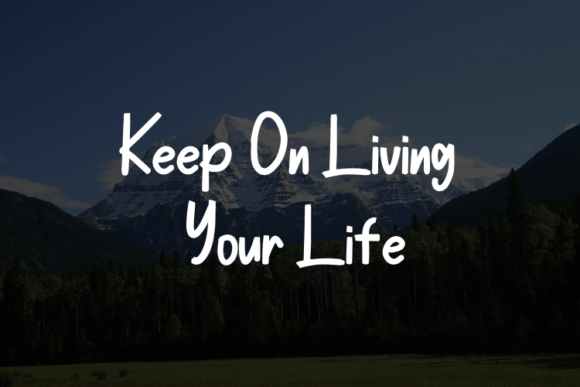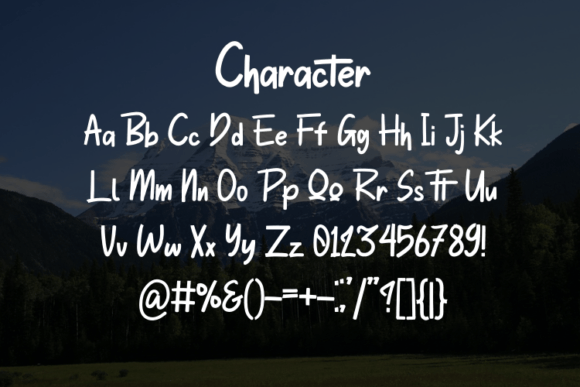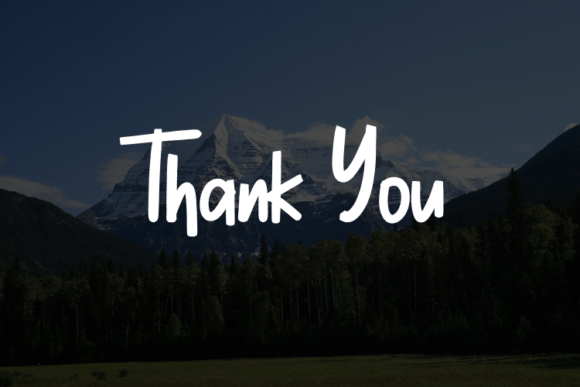
About Mount Lawu Font
Introducing “Mount Lawu” – Your Simple and Modern Script Typeface for Elegant Designs!
“Mount Lawu” is more than just a font; it’s a script typeface that combines simplicity and modernity to bring an elegant and luxurious touch to your design projects. Whether you’re working on logos, book or movie design titles, fashion brands, magazines, clothing, fonts, quotes, or more, “Mount Lawu” is the ideal choice for adding an air of sophistication to your work.
With “Mount Lawu,” you have access to a font that seamlessly blends simplicity with modern style. Its clean and elegant script design adds a sense of refinement and class to your text, ensuring that your content stands out with a touch of luxury.
Imagine using “Mount Lawu” to create elegant and luxurious logos that convey prestige and quality, design captivating titles that exude modernity and style, craft fashion brand identities that reflect the finest taste, or enhance your magazines and quotes with a dash of timeless elegance. This font’s simplicity and modernity will make your designs truly exceptional.
Whether you’re an experienced designer or someone looking to add an elegant touch to your work, “Mount Lawu” is your go-to typeface for embracing sophistication and modernity.